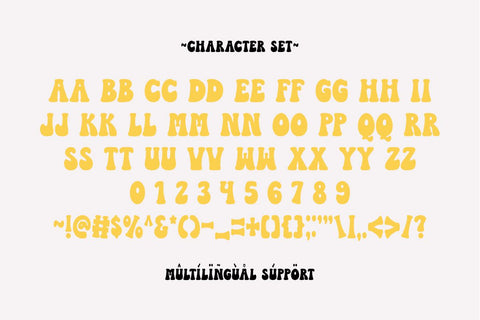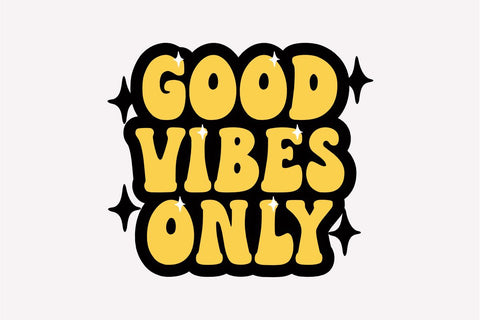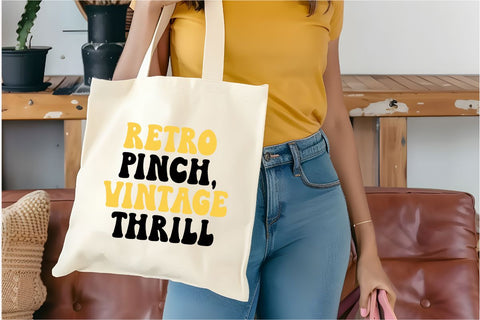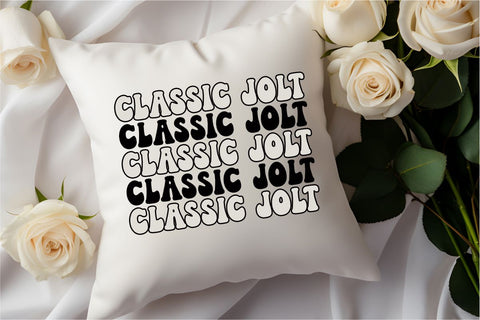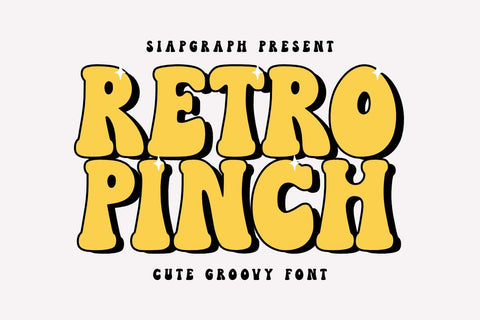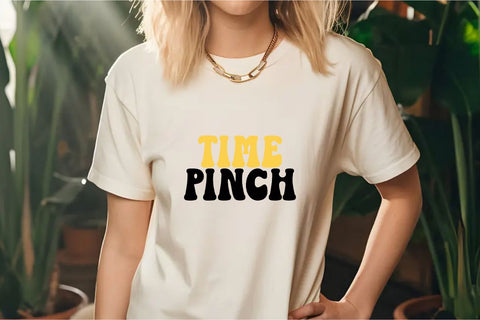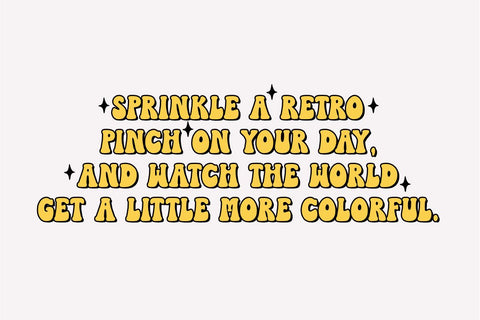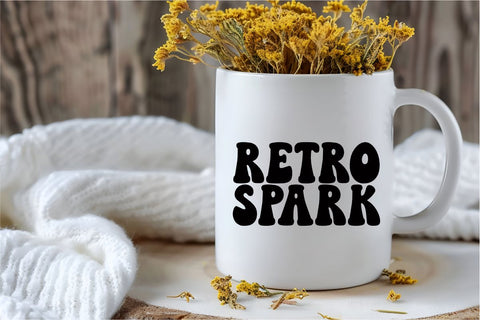
Retro Pinch - Groovy Retro Font
Immerse yourself in a timeless journey with the artisan allure of Retro Pinch. This stylistically charismatic, retro-inspired typeface makes an unbeatable selection for everything from vintage illustrations to contemporary boho creations. Observe the spirited genesis of your T-shirt designs, logos evolving into captivating centrepieces, and your brand stories resonating with audiences like never before. Turn greeting cards into cherished keepsakes, make magazine content jump off the pages, compel double takes on posters, and create unique social media graphics that captivate and thrill. Retro Pinch is your passport to an expansive realm brimming with classic sophistication and style, perfect for enhancing planner prints, taking your Cricut projects to new heights, or creating trendy, hip stickers.